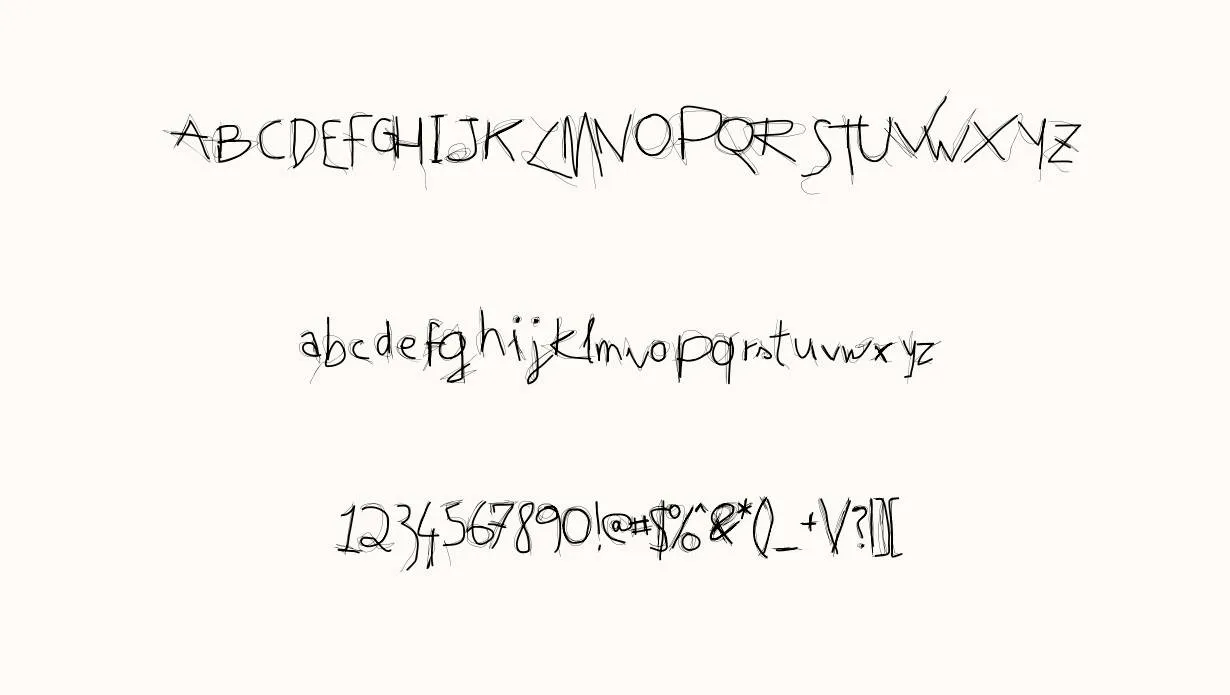
Tequila font is known for its unique and artistic characteristics, often favored for creative projects, artistic designs, or any project seeking an unconventional and expressive look.
Its distinctive style adds a captivating and imaginative touch to the text, making it an intriguing choice for designers looking to create visually striking and original text elements in their designs.
| Name | Tequila Font |
| Designer | Bob Alonso |